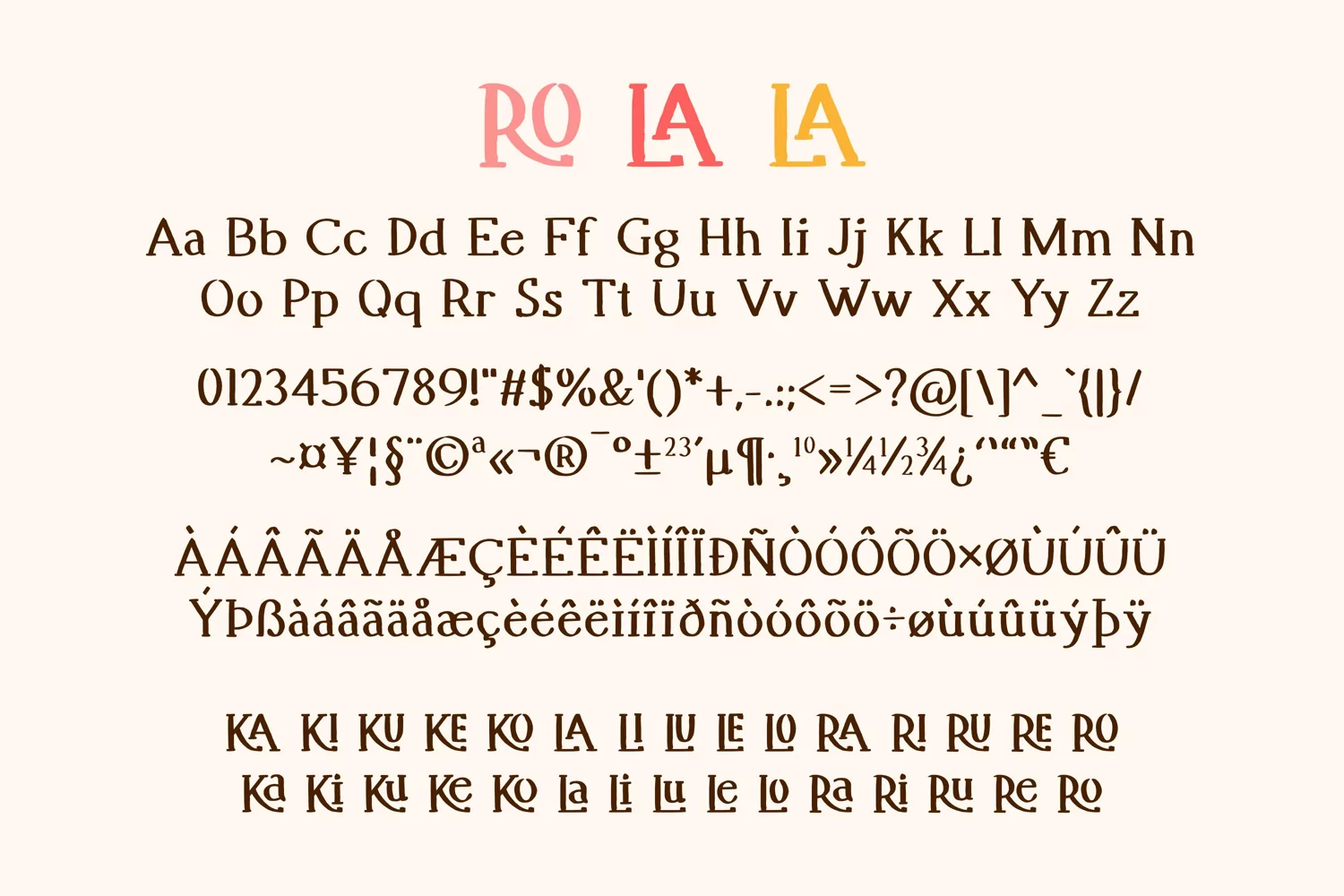
Ro La La is a handwritten slab serif font with ligatures. It is perfect for creating posters, printed quotes, digital designs, or any projects that require a cute yet elegant look. It is also comes with a lovely set of bonus clipart to play around with!
RO LA LA